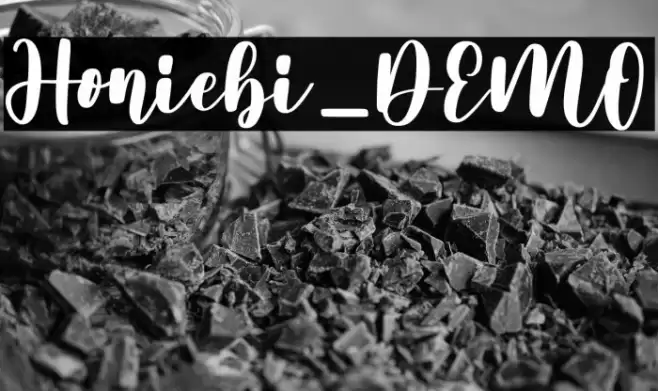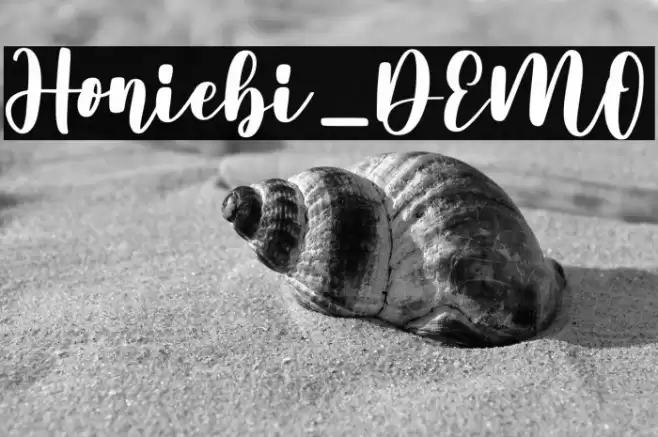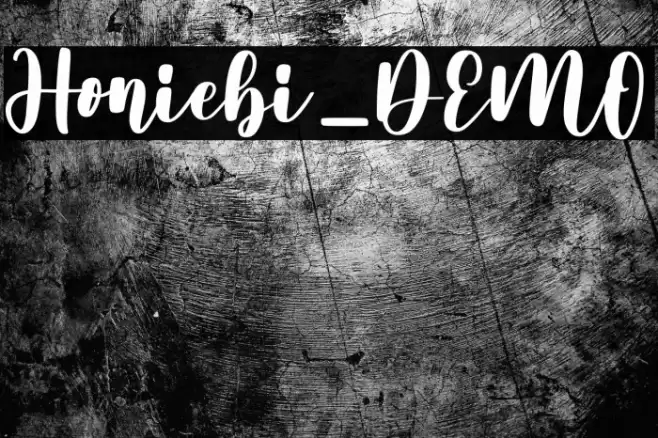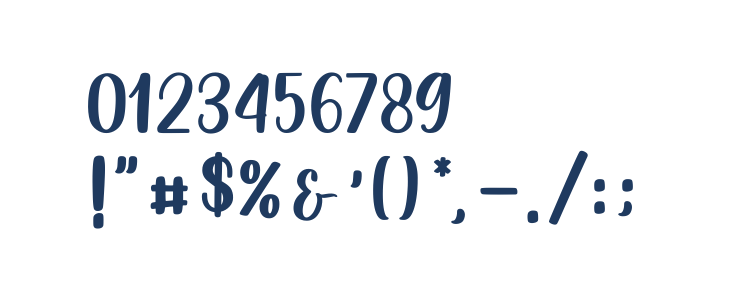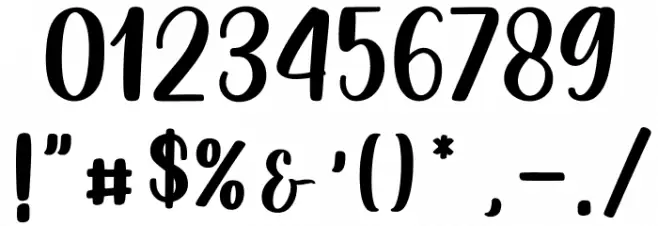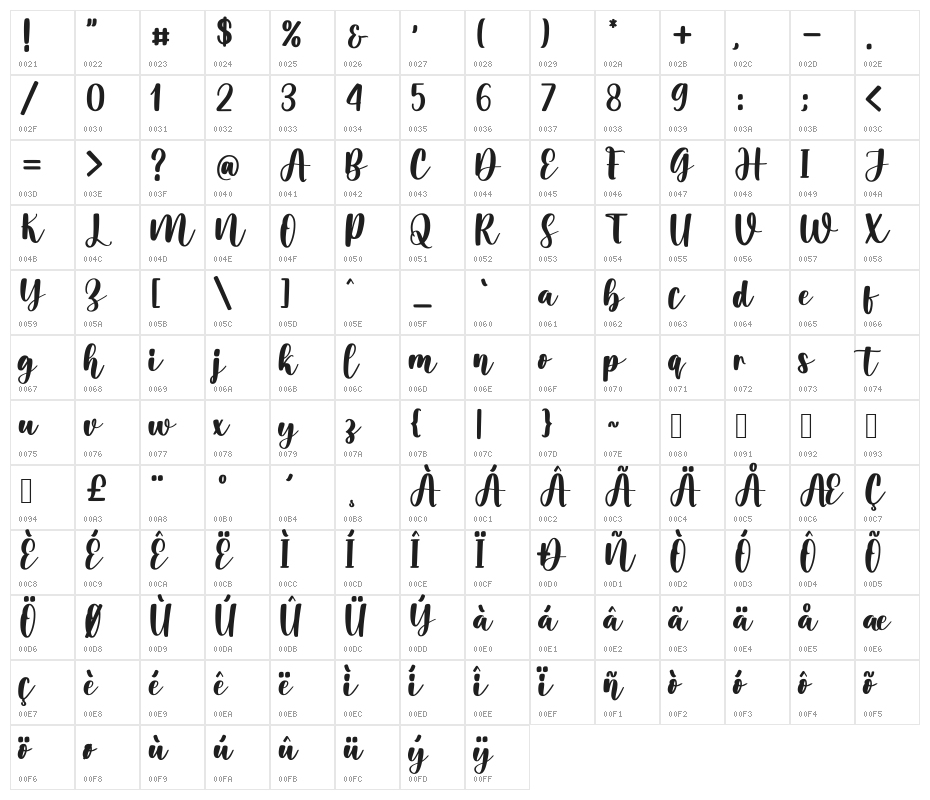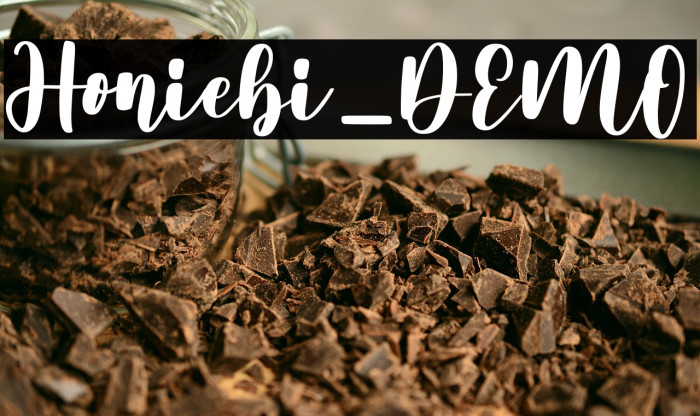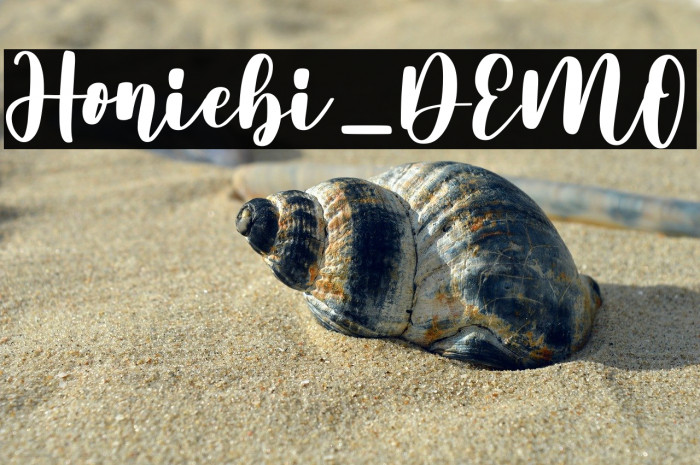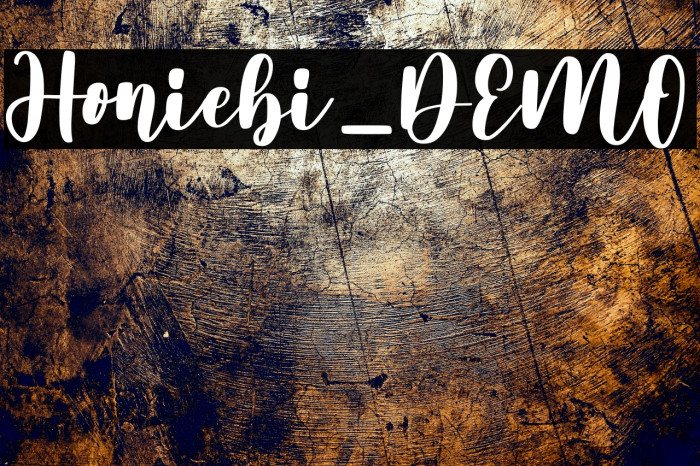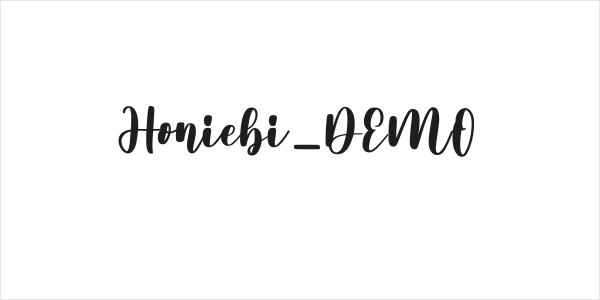
Honiebi_DEMO Font
Honiebi_DEMO Description
This font features a bold and flowing script style, characterized by its elegant and smooth curves. The letters are interconnected, giving it a handwritten appearance that is both stylish and sophisticated. The uppercase letters are slightly more ornate, with some featuring unique flourishes that add a touch of flair. The lowercase letters maintain a consistent flow, enhancing readability while preserving the font's artistic nature. Numbers and special characters are designed to complement the overall aesthetic, ensuring a cohesive look across all text. This font is perfect for projects that require a personal touch, such as invitations, greeting cards, or branding materials.
A bold, flowing script font with elegant, interconnected letters from Regular fonts.
- Proposed Projects: Ideal for invitations, greeting cards, branding, and decorative projects.
- Character Spacing: Tight
- Use Case: Logos, Headlines, Decorative text